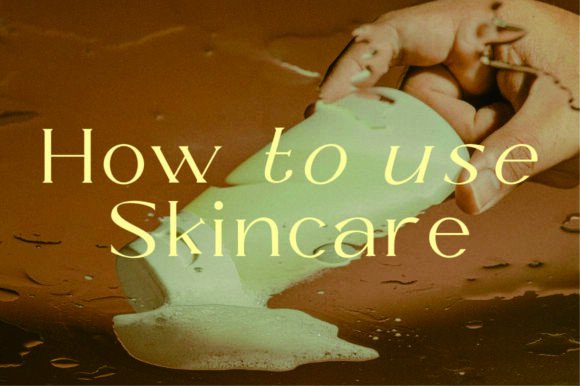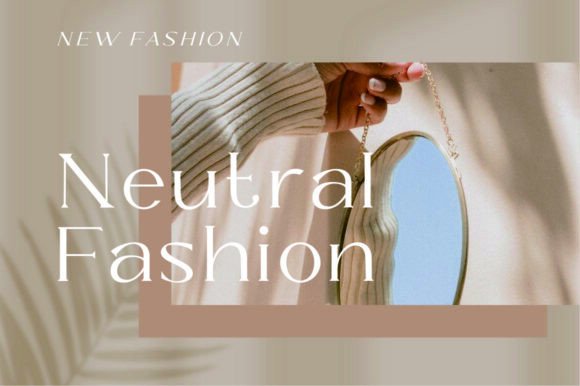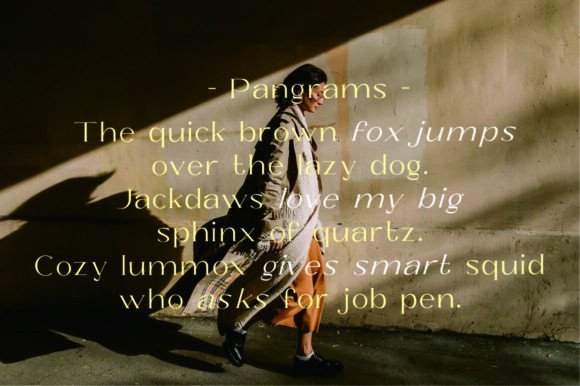
Introduction to Rajilo Font
Remember that moment when you’re working on a creative project and you can’t find the perfect font to match your vision? The frustration of scrolling through endless options, only to end up with a design that feels mediocre? We’ve all been there. But what if I told you that there’s a font that could change the game for your next design project? Meet Rajilo Font, a refined modern serif typeface that’s about to become your new go-to design resource.
With its clean lines, high contrast strokes, and subtle curves, Rajilo Font offers a sophisticated appearance that’s perfect for branding, editorial design, and luxury packaging. Whether you’re working on a high-end visual identity or a simple logo, this font is sure to elevate your design to the next level. And the best part? It’s available for a free download, so you can get started on your creative project right away.
Key Features of Rajilo Font
- Unique and stylish design, perfect for adding a touch of elegance to any creative project, such as logos, branding materials, or digital products.
Honest Review: Rajilo Font
As a designer, I’m always on the lookout for high-quality design resources to elevate my creative projects. The Rajilo Font caught my attention, and I decided to give it a try. Here’s my honest review.
- Unique and elegant design aesthetic that sets it apart from other fonts
- High-quality typography that’s perfect for headings and titles
- Limited character set, which may not be ideal for extended text-based projects
- Not suitable for use as a body font, due to its elegant and ornate design
Overall, I think the Rajilo Font is a great addition to any designer’s toolkit, especially for creative projects that require a touch of elegance and sophistication. With its unique design and high-quality typography, it’s definitely worth considering for your next design project.